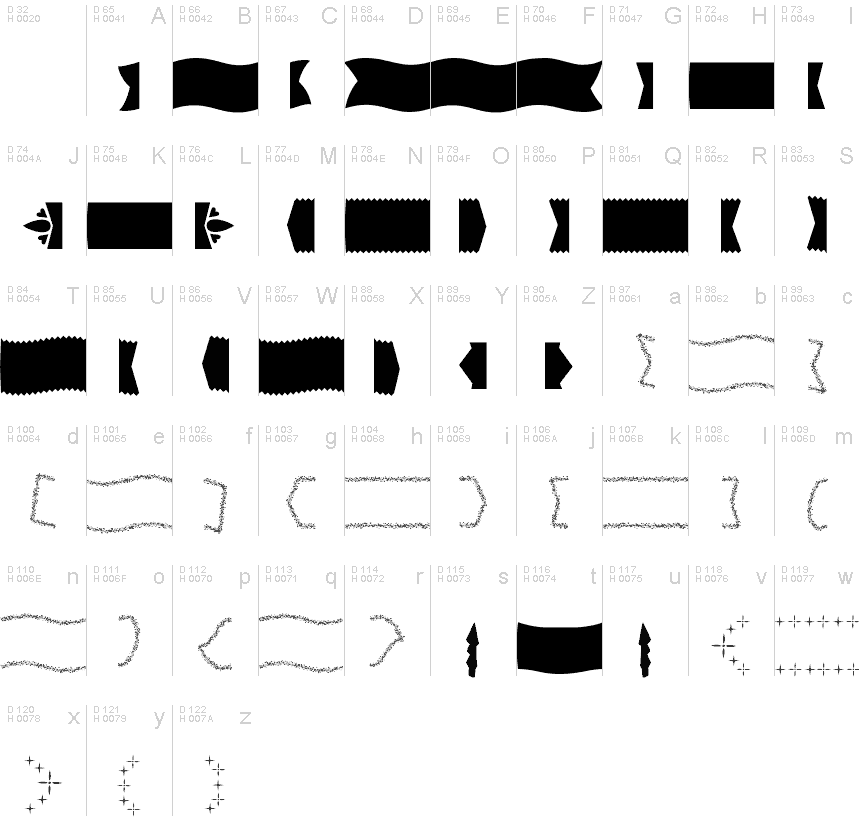
Christmas Banners
Write for example [Christmas] [Miracle] to make decorative versions of the words. Available words: Wish, Wishes, Merry, Christmas, Happy, New Year
How to use the Banners font: Write for example ABC to create a beginning, middle and end, or ABBBC for a longer banner.